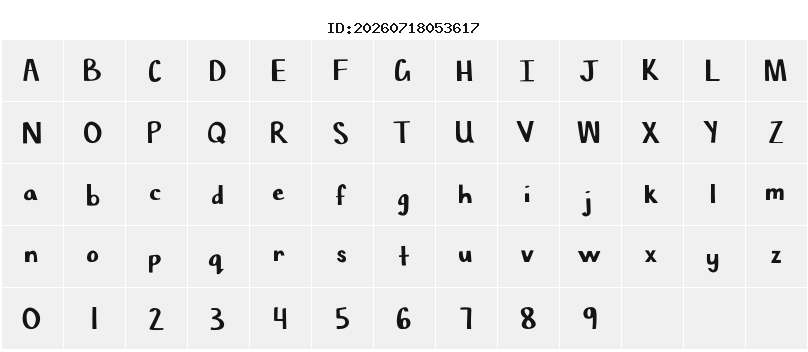
• Font Name: Chisel Mark
• Designer: Savana Price | SavanasDesign.com
Chisel Mark.ttf is a modern, elegant sans-serif font designed for ultimate readability and visual harmony. Perfect for branding, headlines, web design, and print materials.